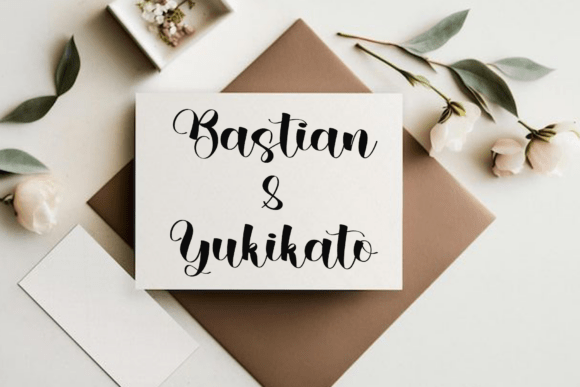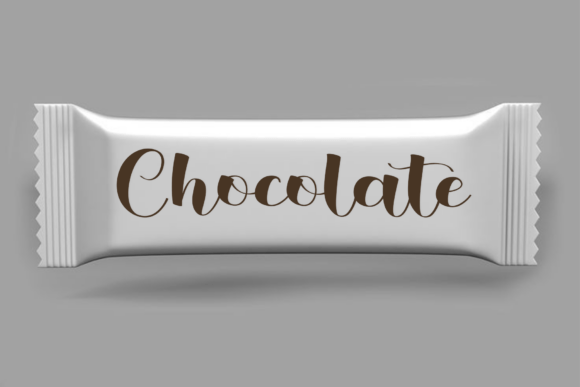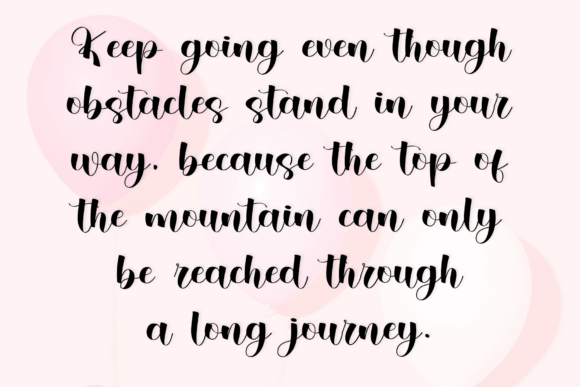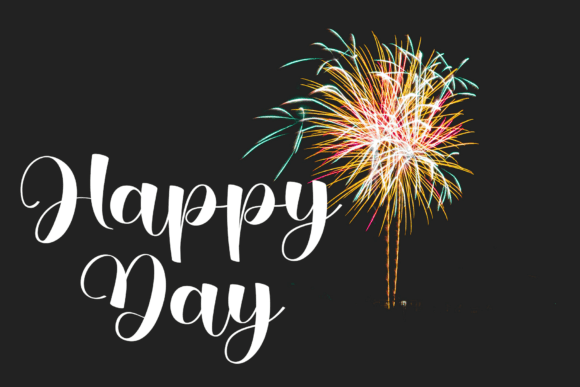
Introducing Happy Birthday Font: The Perfect Addition to Your Design Arsenal
Are you tired of using the same old fonts for your designs? Look no further! Happy Birthday Font is a delicate handwritten font that is carefully crafted to add a touch of elegance and uniqueness to your creations. This versatile font can be used for a wide range of applications, from writing letters and invitations to designing food products, titles, and more.
What Makes Happy Birthday Font Special?
Happy Birthday Font is a handcrafted font that boasts a distinctive and charming style. Its delicate strokes and carefully designed letters make it perfect for creating beautiful and eye-catching designs. Whether you’re a designer, crafter, or DIY enthusiast, this font is sure to become a staple in your design arsenal.
Uses of Happy Birthday Font
The possibilities are endless when it comes to using Happy Birthday Font. Here are some ideas to get you started:
- Invitations: Create beautiful and unique invitations for birthdays, weddings, baby showers, and other special occasions.
- Letter Writing: Add a personal touch to your letters and correspondence with this lovely font.
- Food Products: Use Happy Birthday Font to design labels, packaging, and branding for food products, such as baked goods, candies, and specialty foods.
- Titles and Headings: Add a touch of elegance to your titles and headings with this beautiful font.
- DIY Projects: Use Happy Birthday Font to add a personal touch to your DIY projects, such as crafts, scrapbooking, and journaling.
Why Choose Happy Birthday Font?
Here are just a few reasons why Happy Birthday Font stands out from the rest:
- Unique and Handcrafted: Each letter and stroke is carefully designed to create a unique and charming style.
- Versatile: Happy Birthday Font can be used for a wide range of applications, from formal to informal designs.
- Elegant: This font adds a touch of elegance and sophistication to any design.
- Easy to Read: Despite its delicate nature, Happy Birthday Font is easy to read and understand.
Tips for Using Happy Birthday Font
Here are some tips to help you get the most out of Happy Birthday Font:
- Pair with Other Fonts: Experiment with pairing Happy Birthday Font with other fonts to create a unique and interesting design.
- Use for Headings: Use Happy Birthday Font for headings and titles to add a touch of elegance to your design.
- Experiment with Colors: Try out different colors and color combinations to add depth and interest to your design.
- Keep it Simple: Don’t be afraid to keep your design simple and clean to let the font shine.